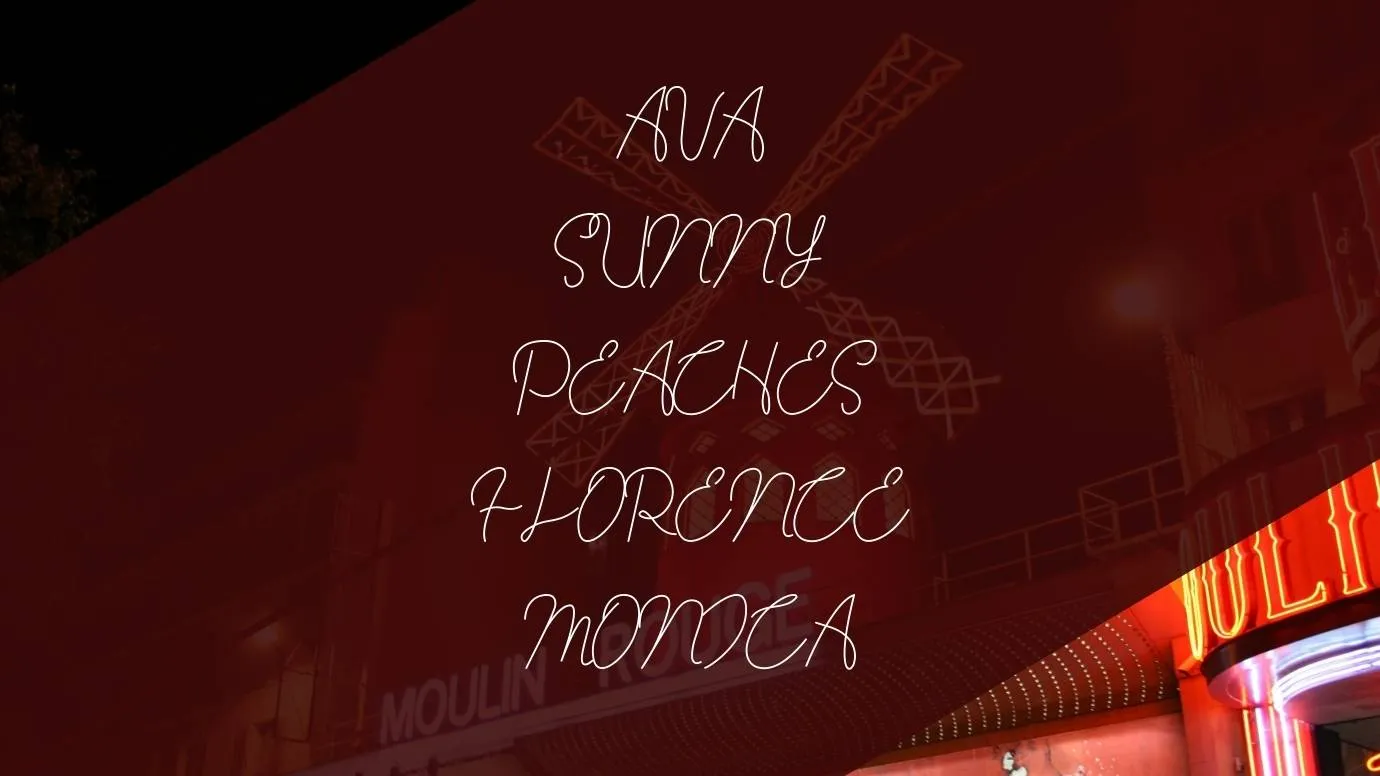
Now I am introducing to you a beautiful and marvelous font. Paris font belongs to the script family. It is a handwritten font. This font has just one regular style. This font is used in book covers, magazines covers, invitation cards, and logos.
You can use this font in invitation cards, product packing, websites, logos, posters, magazine covers, fashion magazines, fabric designs, banners, brochures layouts, book covers, book titles, and many other designing works.
Creator of Paris Font
This font I created by an Indonesian typeface and font designer Axel Alessandro Satriawan for letterpedia.
This font style is created with a unique and handwritten style. This fabulous style is a combination of various features, like symbols, punctuations, glyphs, digits, capital alphabets, small alphabet, special characters, and with several language support,
View of Paris Font
Paris Font Details
| Name | Paris Font |
| Style | HandWritten |
| Designer | Axel Alessandro Satriawan |
| Foundry | Letterpedia |
What is Paris Font used for?
This font is used for book covers, logos, invitation cards. You can also use this font in product packing, brochures layouts, and T-shirt designs.
Is Paris Font good for a magazine cover?
Yes, this font is good for magazine covers, you can use this font in fashion magazines, book covers, posters, banners, shop/store names.
Is Paris Font a Sans Serif font?
No, this is not a Sans Serif Font, it is a handwritten font. This font belongs to the script family.